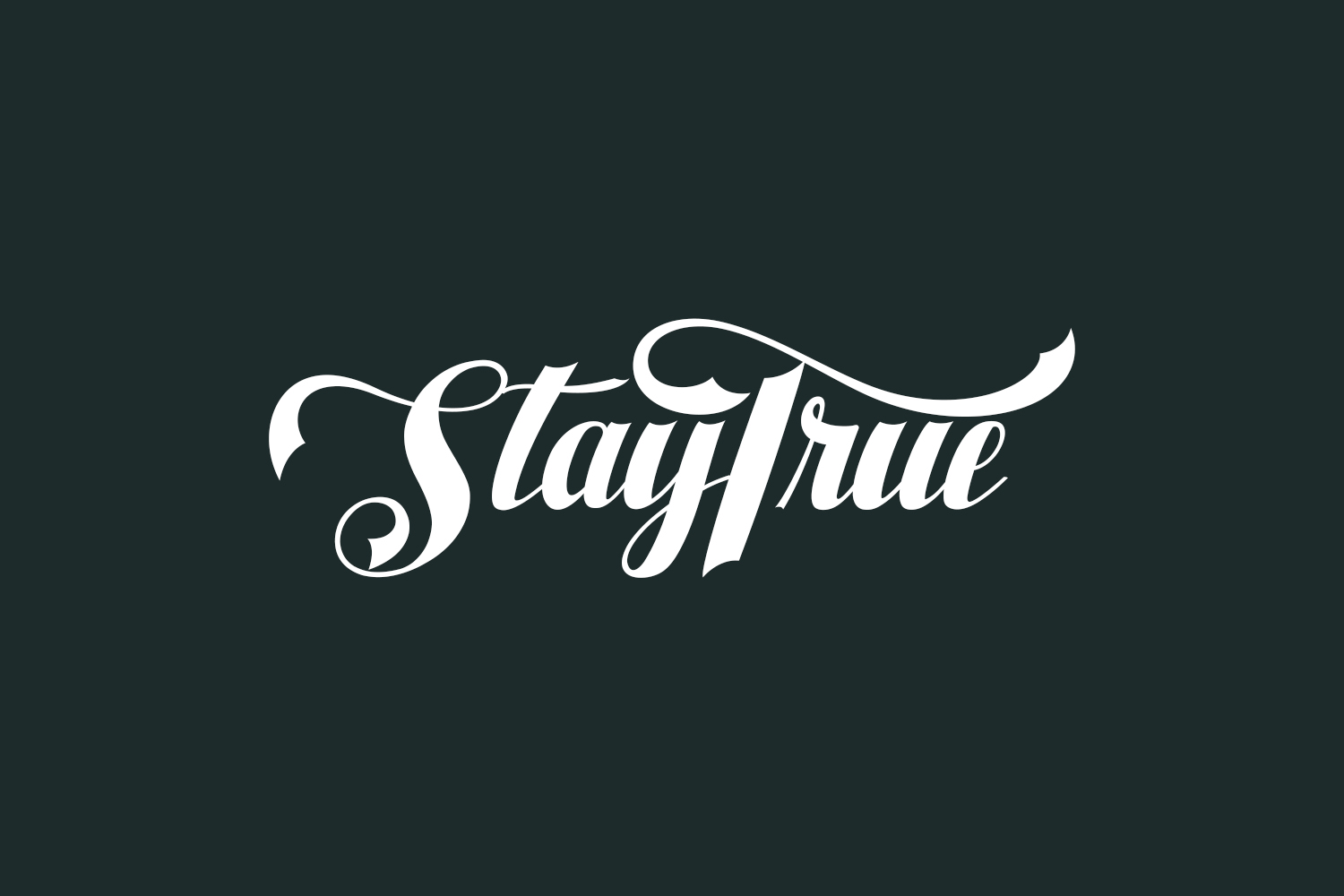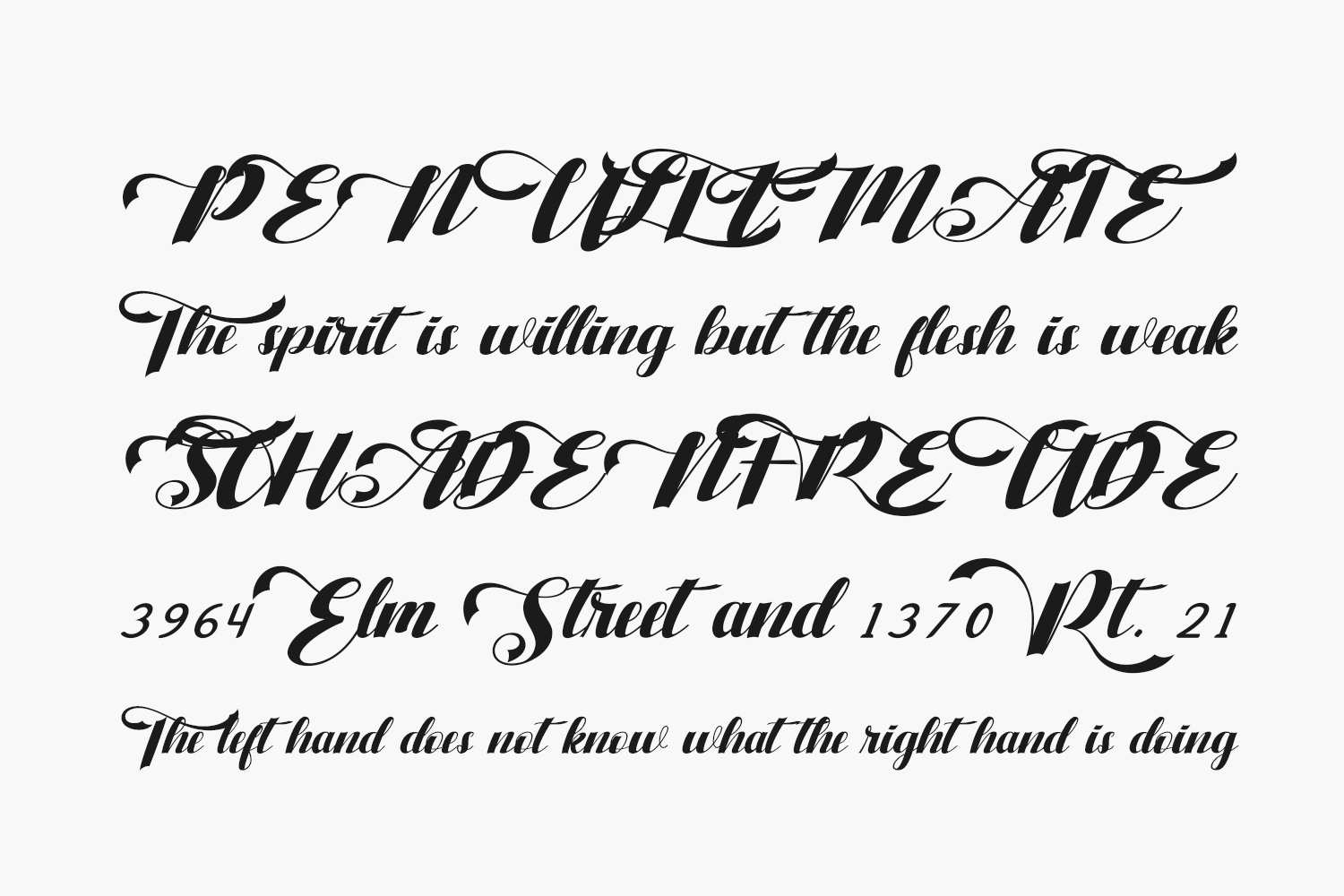
Introducing StayTrue Free Font, a contemporary and minimalist handwritten font carefully crafted with a random and freestyle approach. Its versatility makes it the perfect choice for a wide range of creative design projects, including logotypes, typography, headlines, corporate and brand identities, apparel industry, posters, music, movies, games, magazines, books, comics, cartoons, YouTube, Instagram, websites, and more. Unlock your creative potential with Staytrue and bring a touch of modern elegance to your designs. StayTrue Free Font is free for personal use only. Please purchase the full version for commercial use.